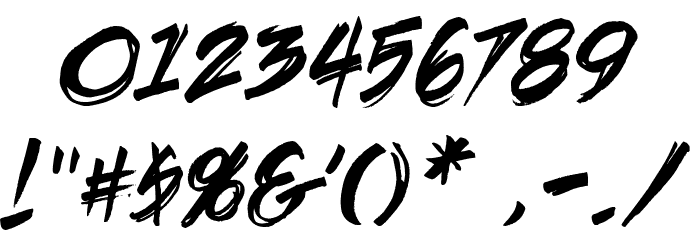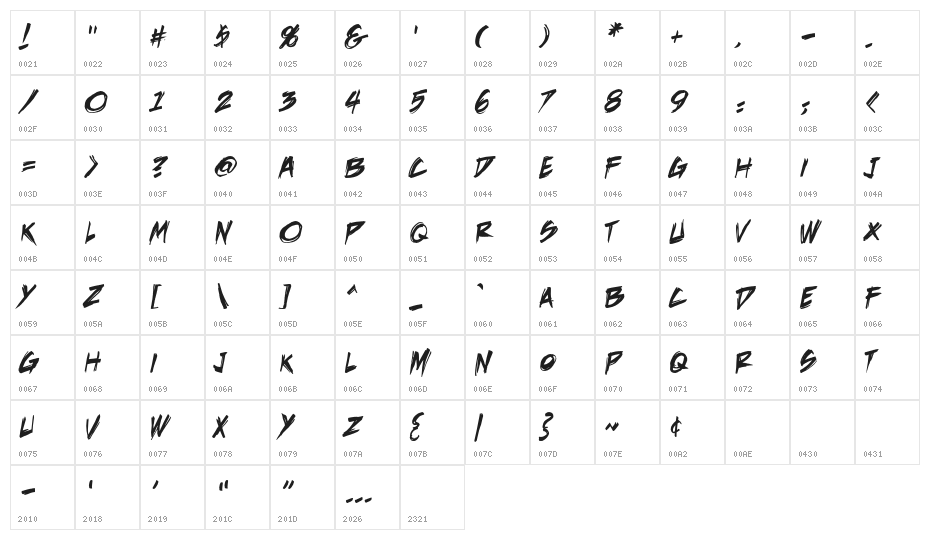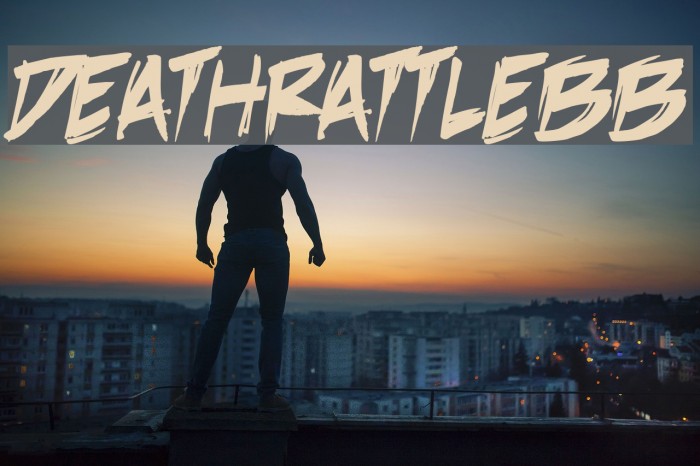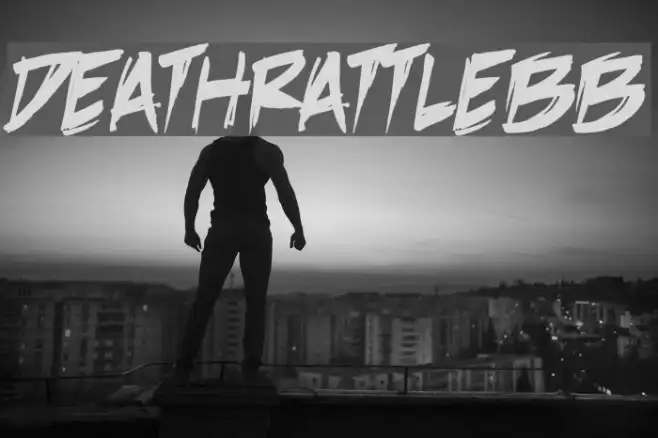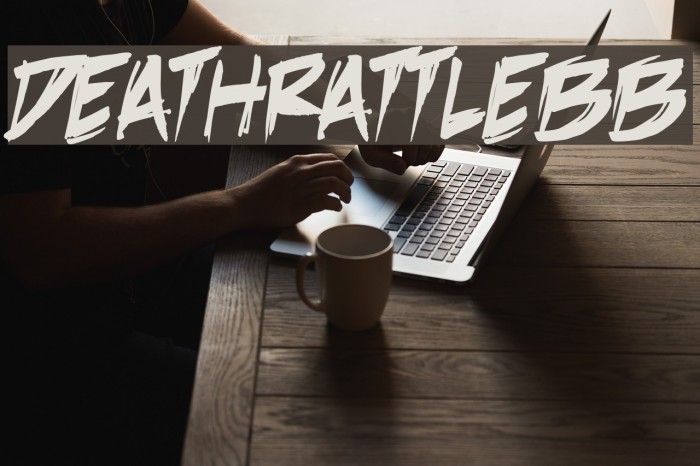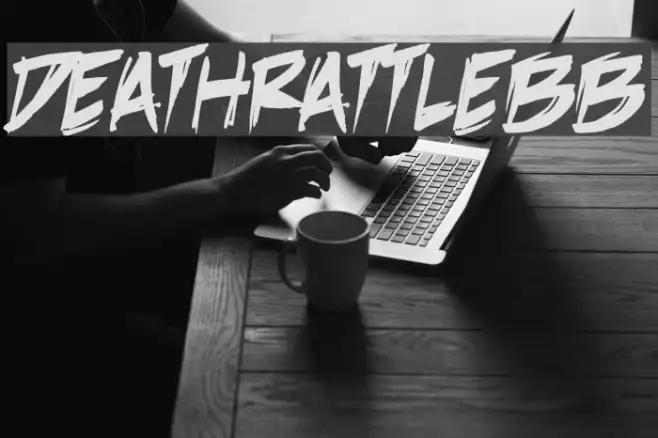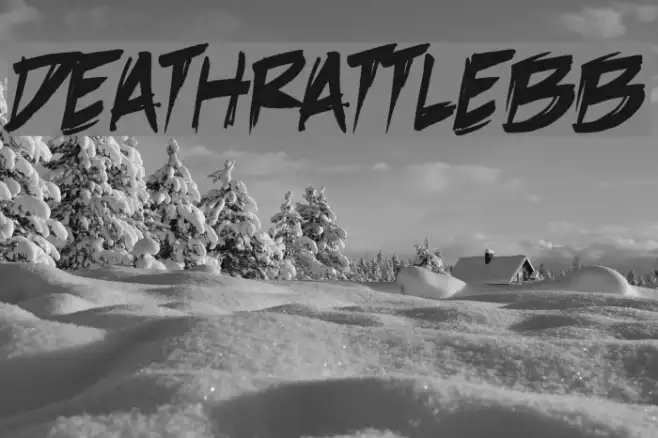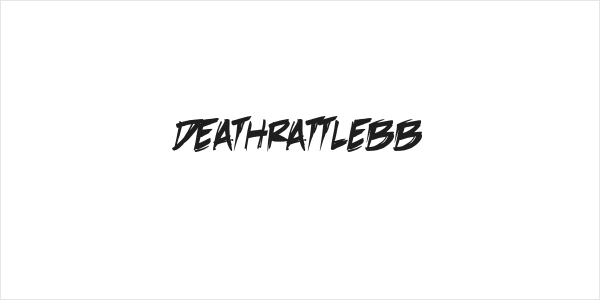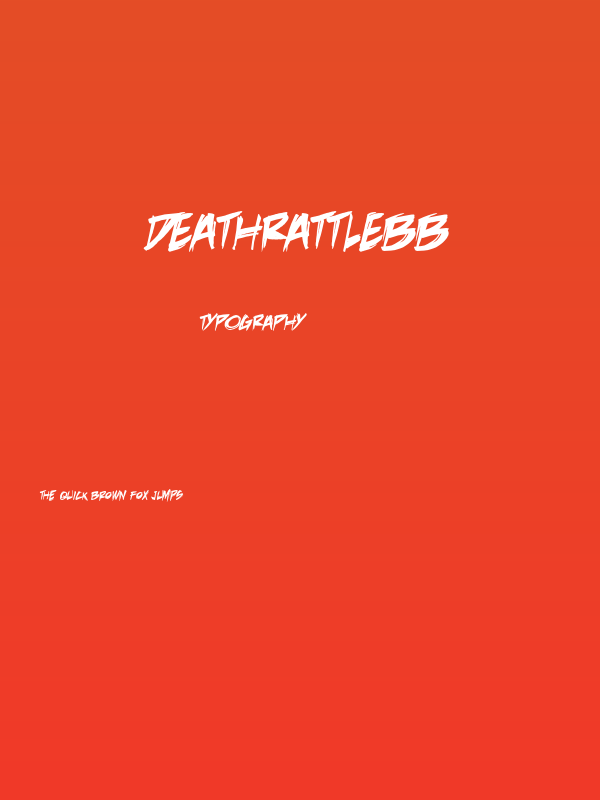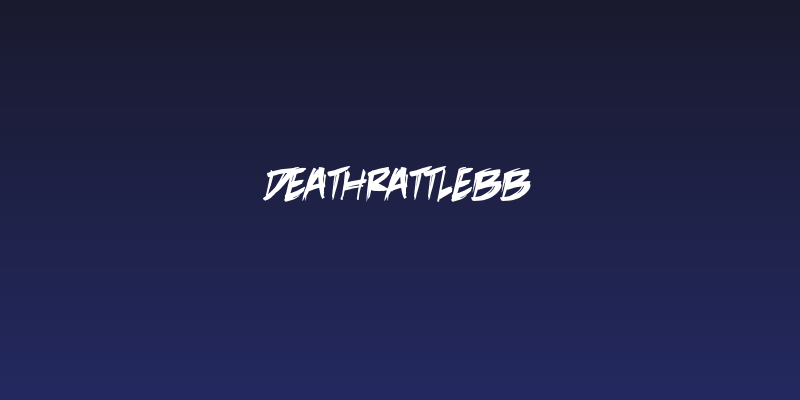
DeathRattleBB Font
DeathRattleBB Description
This font features a bold, aggressive style with sharp, jagged edges and a dynamic, energetic flow. The letters are heavily stylized, resembling brush strokes or graffiti, giving it a raw and edgy appearance. The uppercase and lowercase letters maintain a consistent aesthetic, with exaggerated angles and a sense of movement. Numbers and special characters follow the same bold and expressive design, making the font suitable for attention-grabbing headlines or artistic projects. The overall look is modern and rebellious, perfect for designs that require a strong visual impact.
Overall StyleModern, Edgy
Proposed ProjectsIdeal for album covers, posters, streetwear branding, and any project needing a bold, rebellious touch.